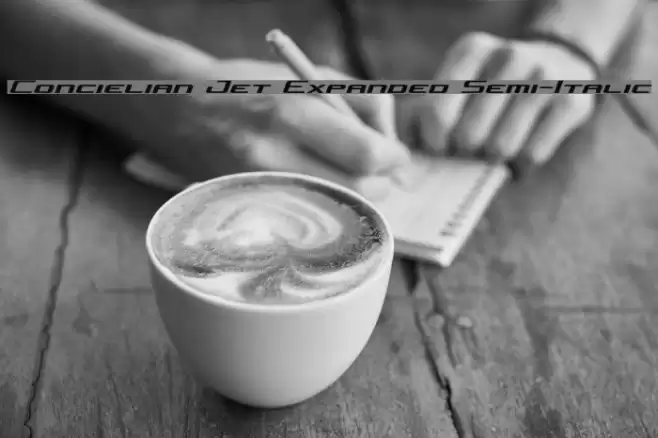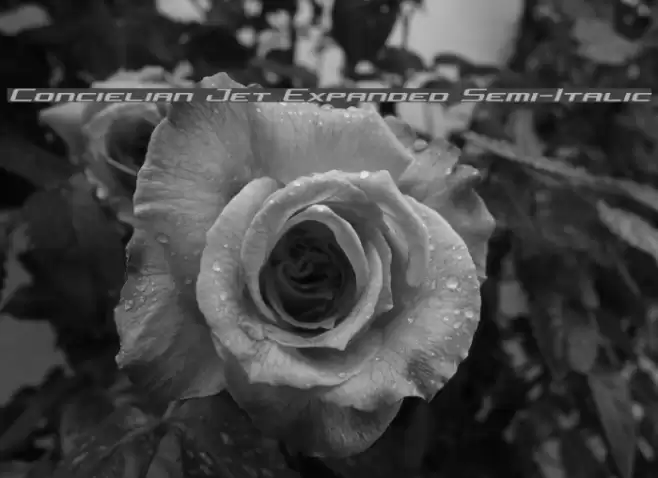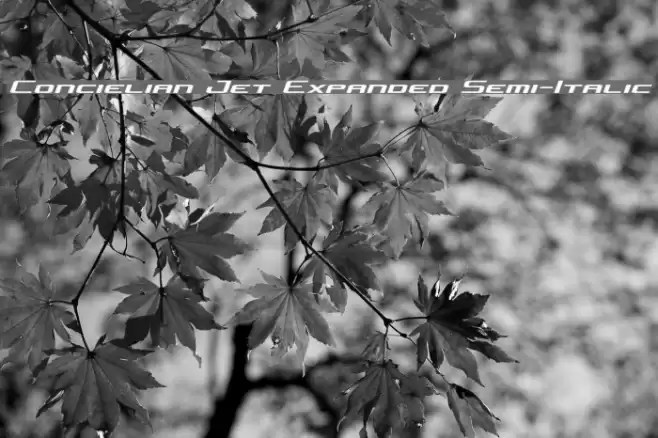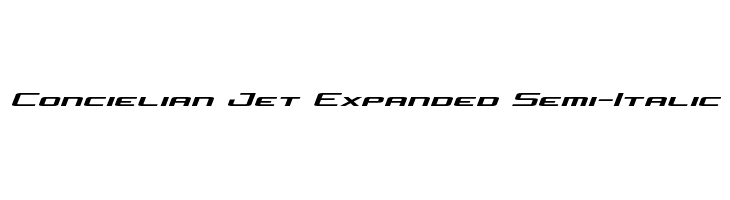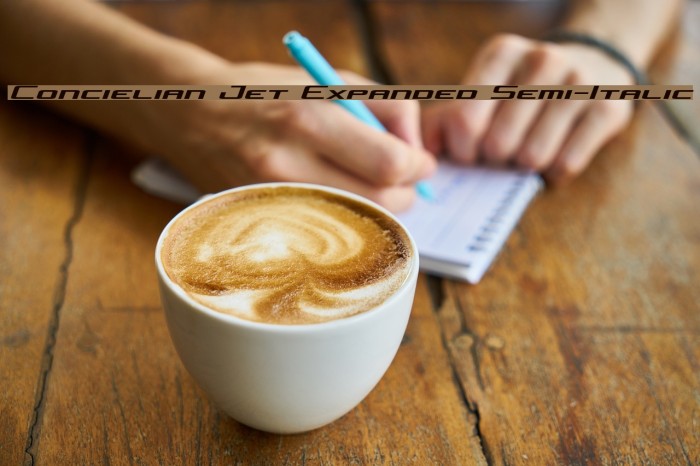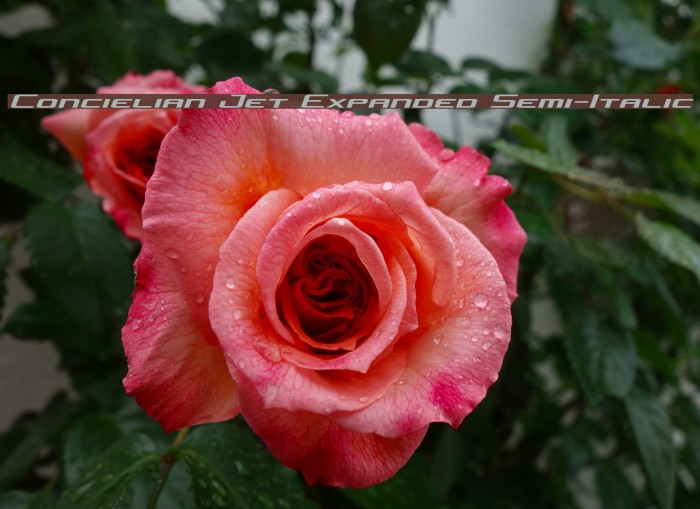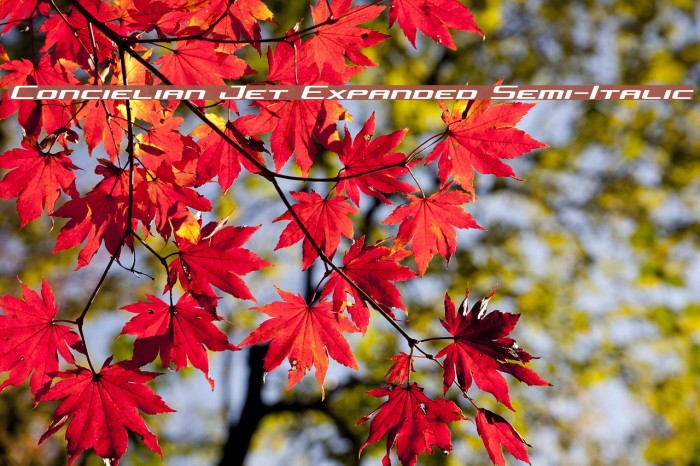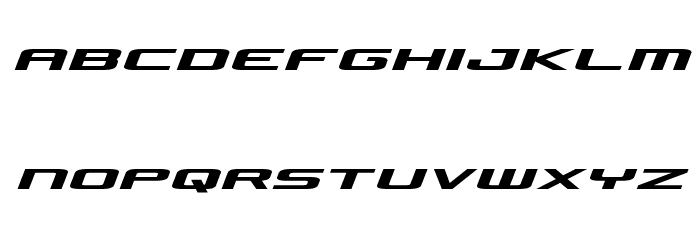
Concielian Jet Expanded Semi-Italic Font
Concielian Jet Expanded Semi-Italic Description
This font exhibits a sleek, futuristic design with an expanded and semi-italic style. The characters are bold and slightly slanted, giving a sense of motion and speed. The strokes are consistent in thickness, providing a uniform appearance across all characters. The expanded width allows for greater readability, making it suitable for various applications. The font's angular and geometric shapes contribute to its modern aesthetic, while the semi-italic slant adds a dynamic touch. Overall, it combines elements of modernity and functionality, making it versatile for different design needs.
A sleek, expanded, semi-italic font with a futuristic and dynamic style from Uncategorized fonts.
- Proposed Projects: Ideal for branding, technology-related projects, automotive designs, and sports-themed graphics.
- Width: Expanded
- Overall Style: Futuristic
- Use Case: Headlines, Logos, Branding